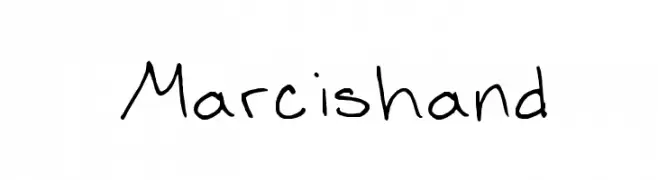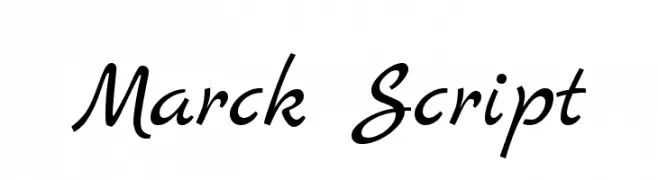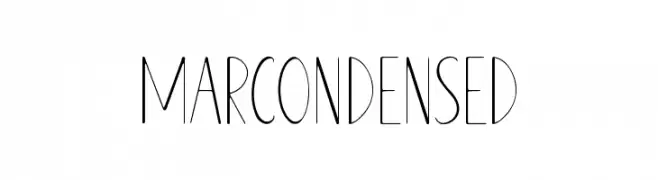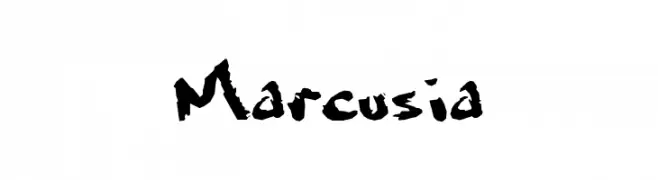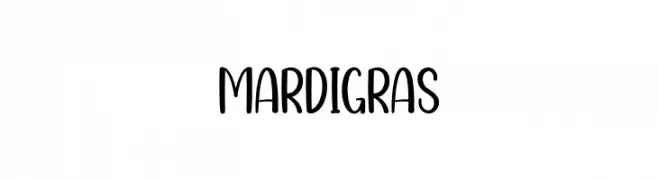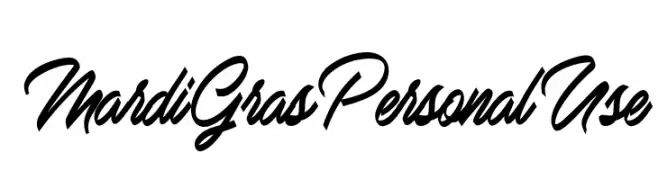
A casual handwritten font with smooth, flowing strokes and a lively appearance.
A casual, handwritten font with fluid, slightly irregular strokes.
& Marck Fogel ) A casual and friendly script font with smooth, flowing letterforms.
A modern, condensed font with sleek, elongated characters and a minimalist aesthetic.
A dot matrix style font with a retro digital display appearance.
A bold, high-contrast font with sharp angles and dynamic flair.
Playful handwritten font with a casual style.
A bold, cursive font with dynamic, flowing characters and a decorative style.